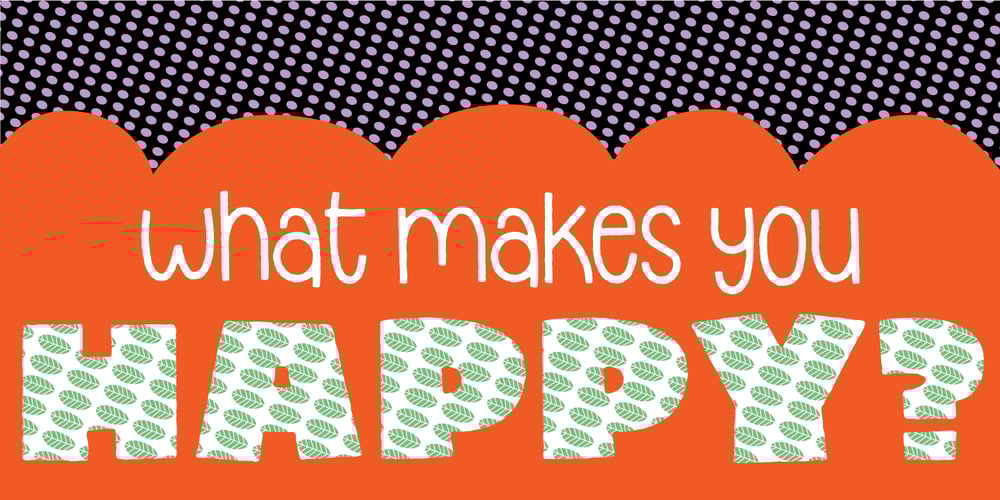
Pusling Font Family was designed by published by Bogstav. Pusling contains 3 styles and family package options. The Pusling font is inspired by spring – something that sends positive vibes after the cold winter.